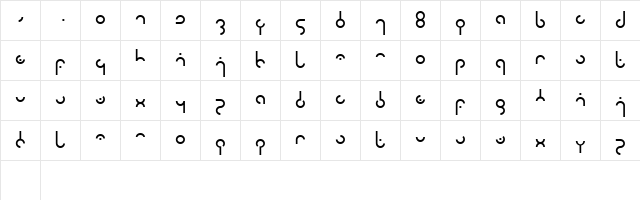
Mod Circle S Regular
Design Context for Mod Circle S Typeface
Mod Circle S takes a measured approach to typography — its balanced proportions and neutral character make it a reliable workhorse for both digital and print work.